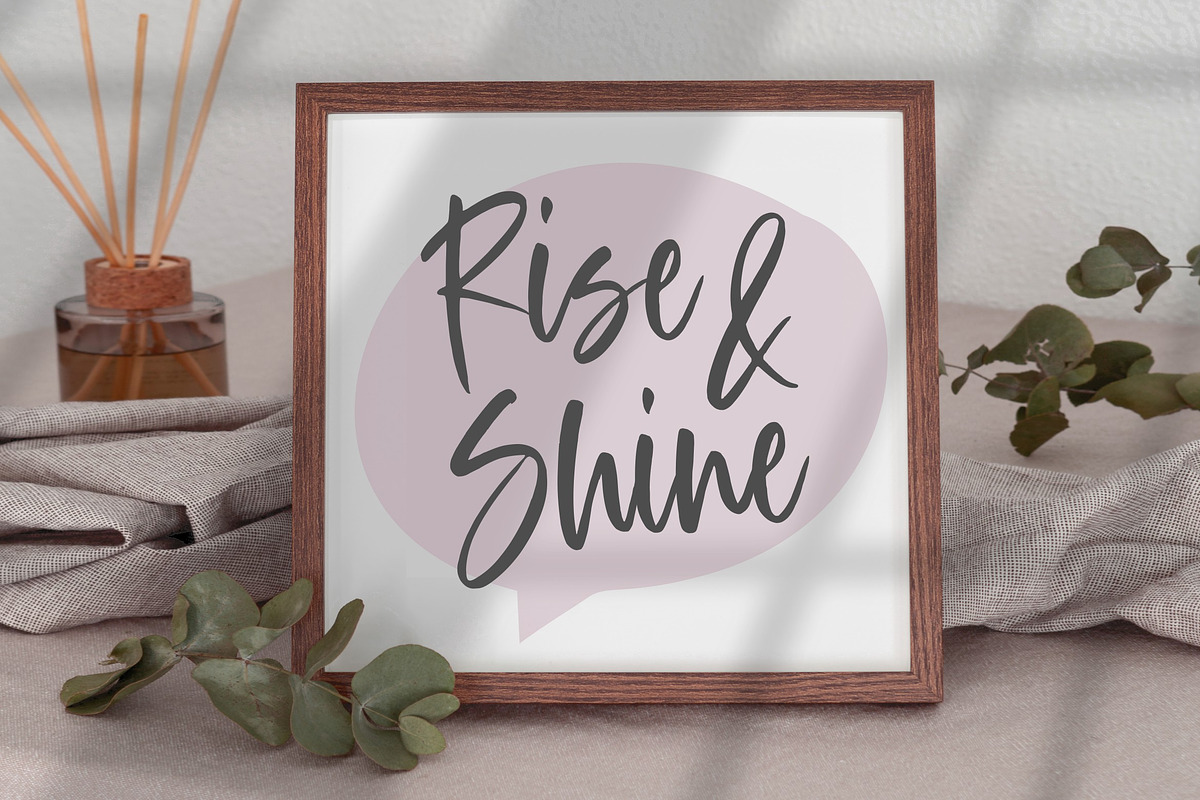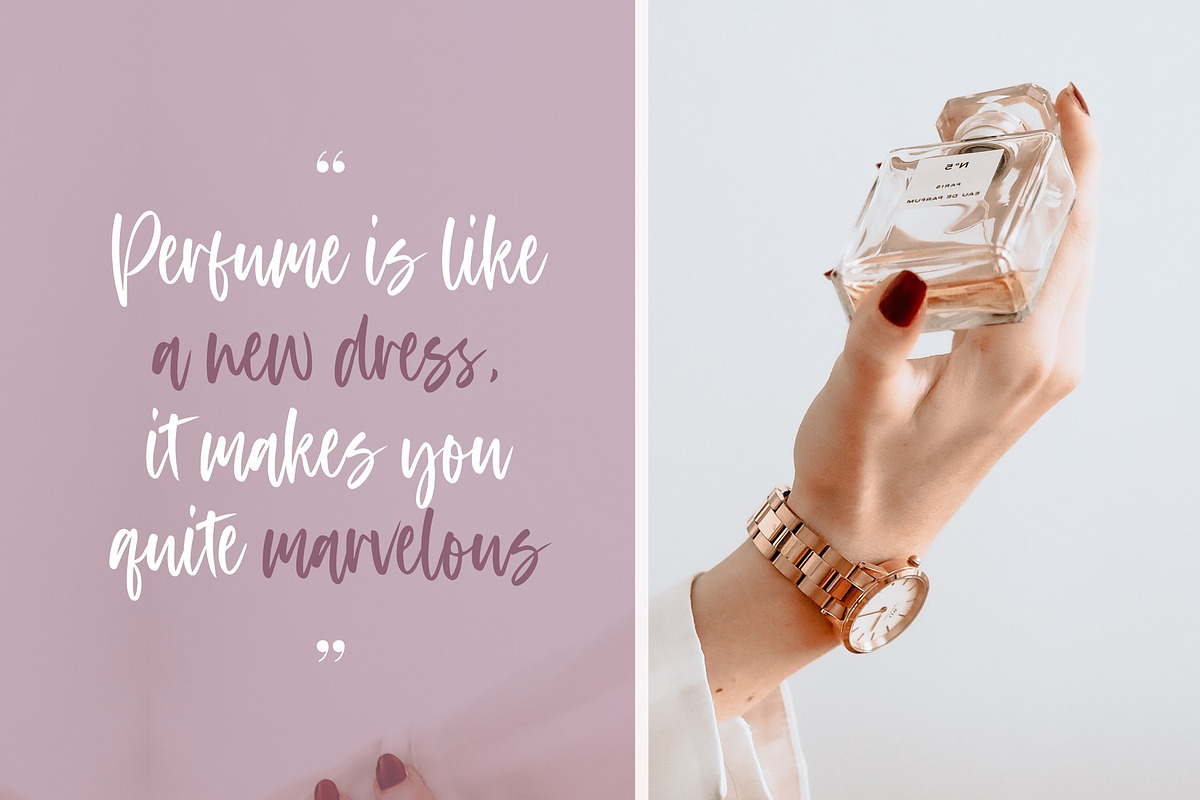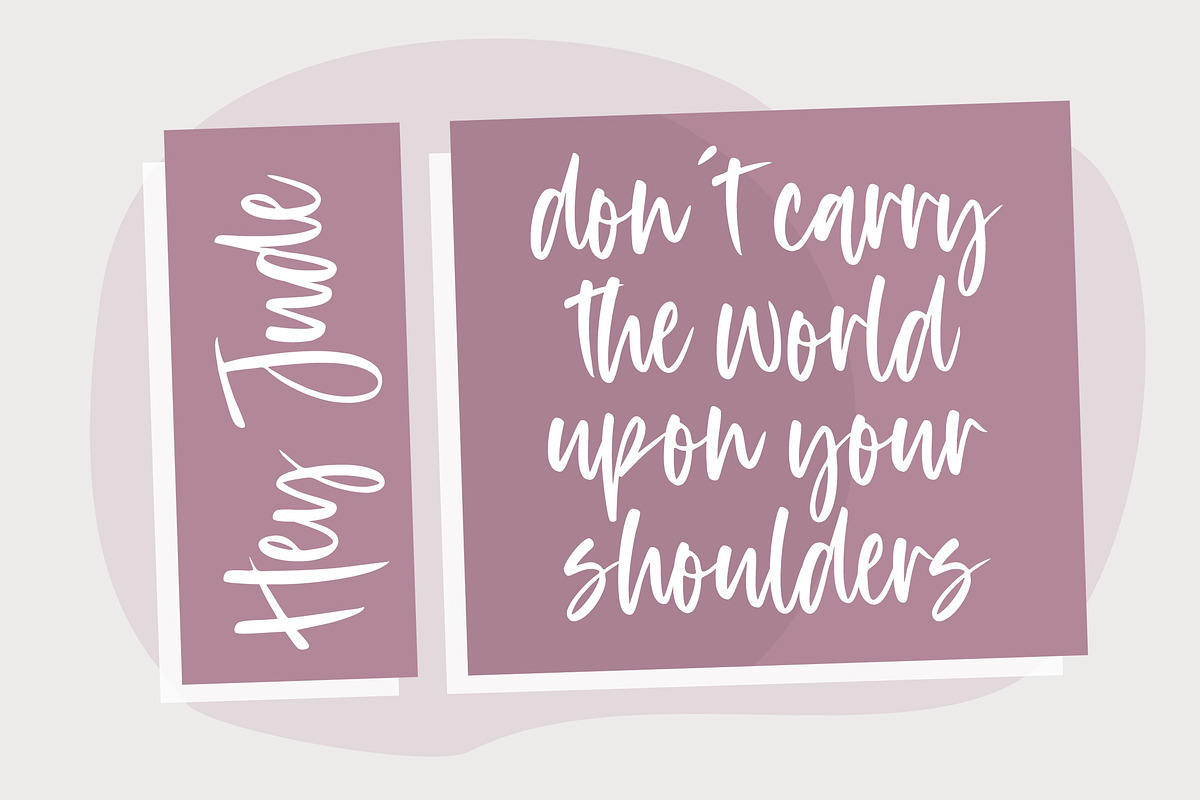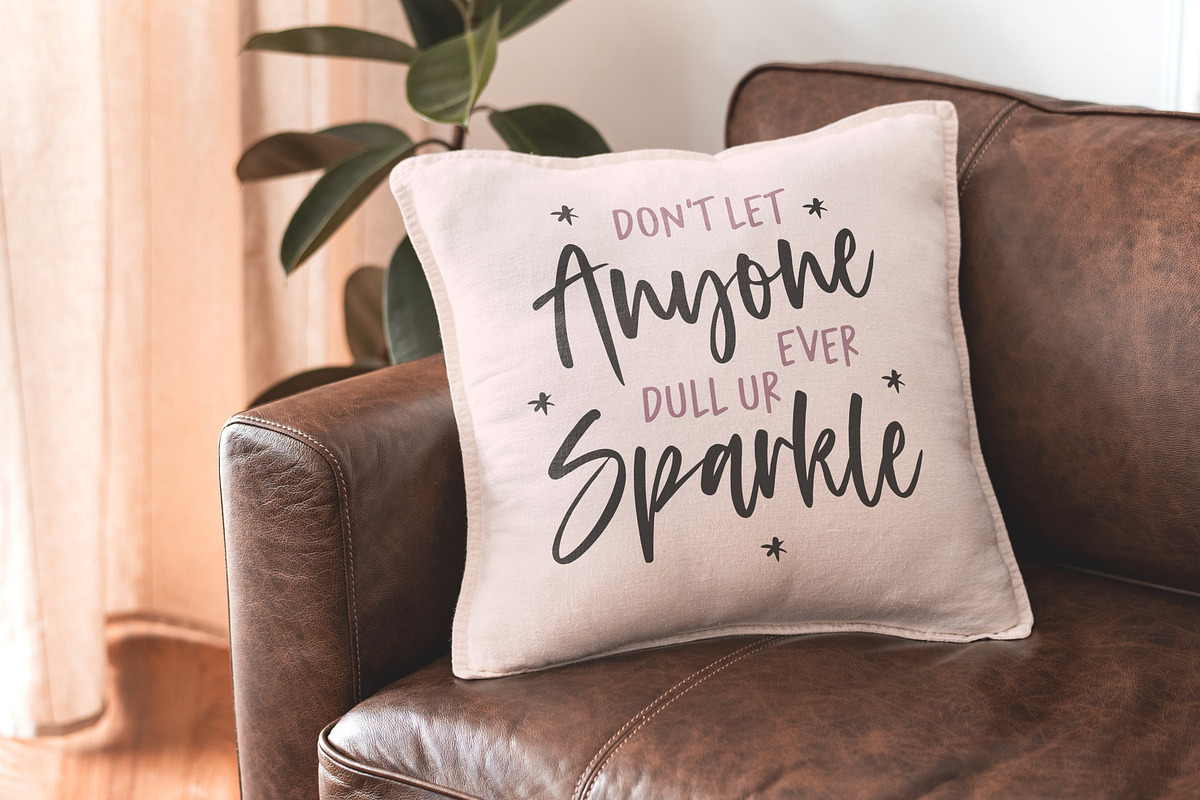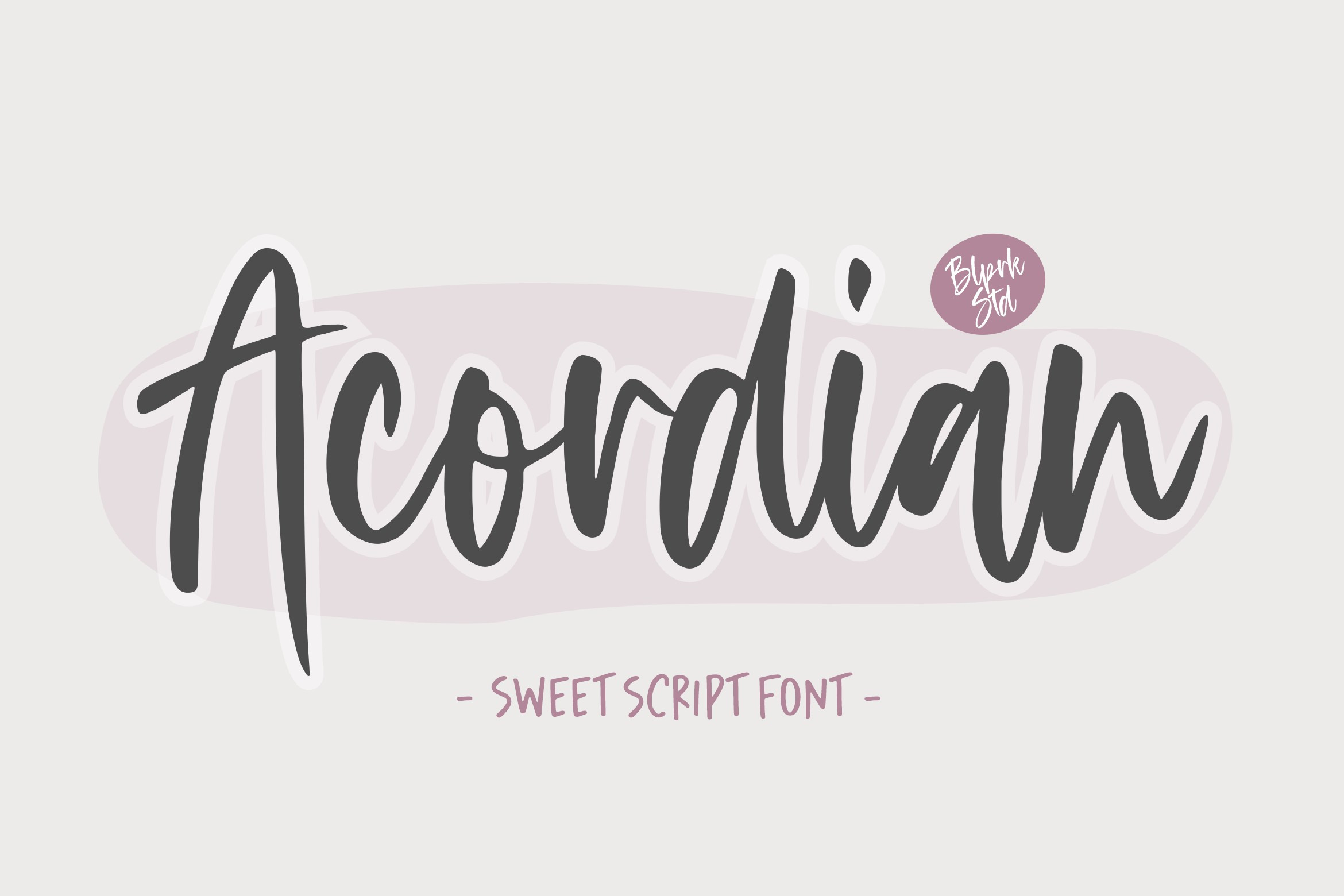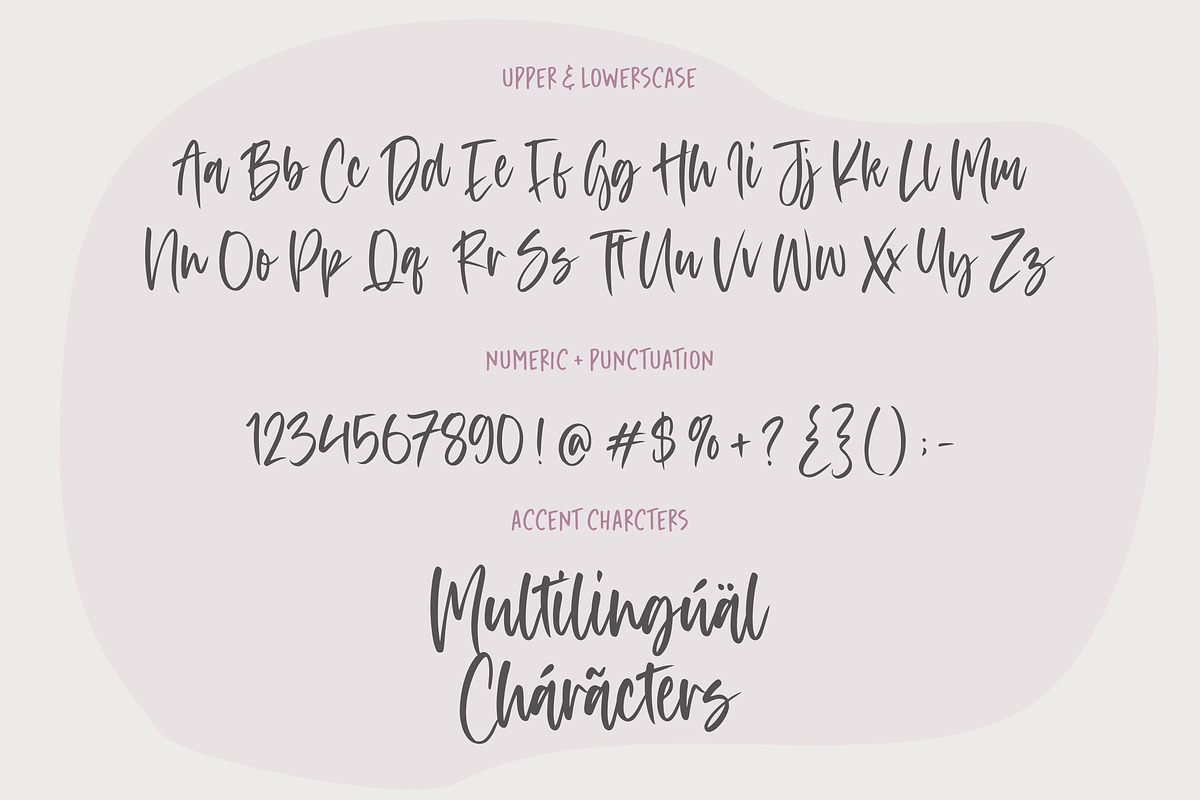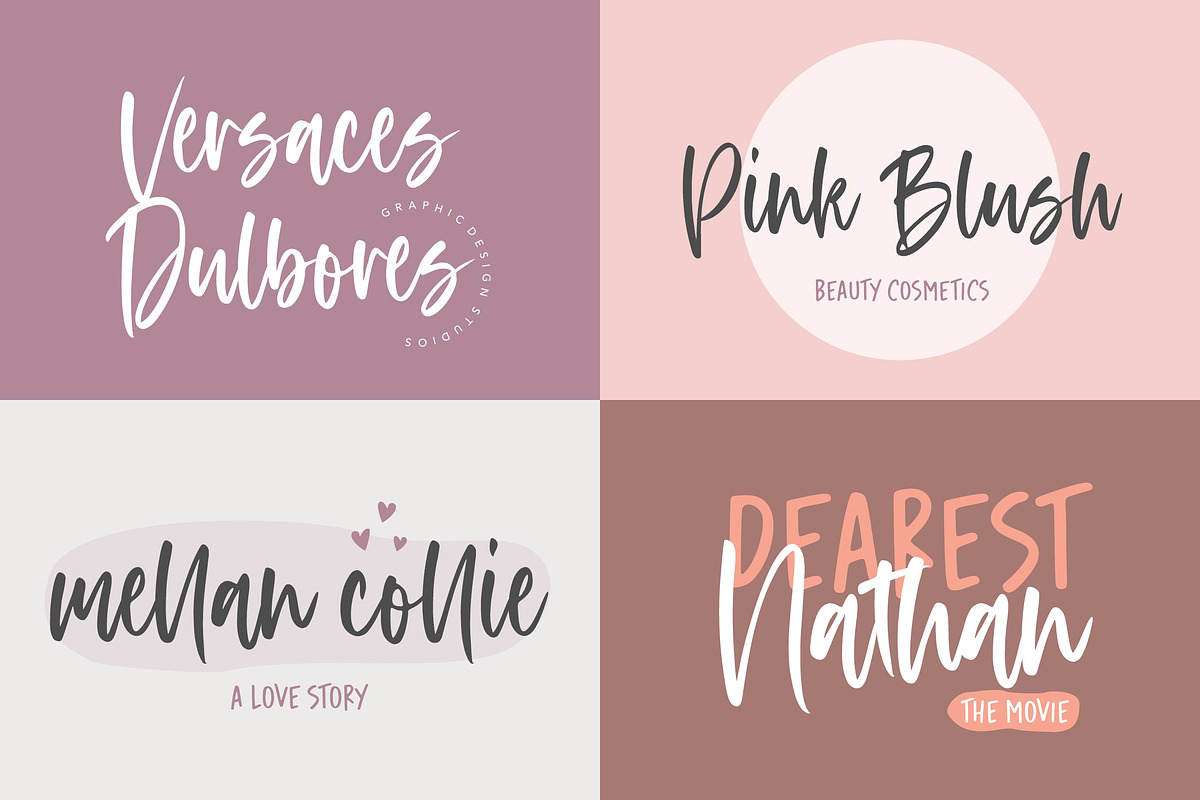
Acordian - Sweet Script Font
Acordian is a modern and asymmetrical script font. It looks distinct on greeting cards, thank you cards, quotes, logos, business cards and every other design which needs a customized touch.
- also multilingual support